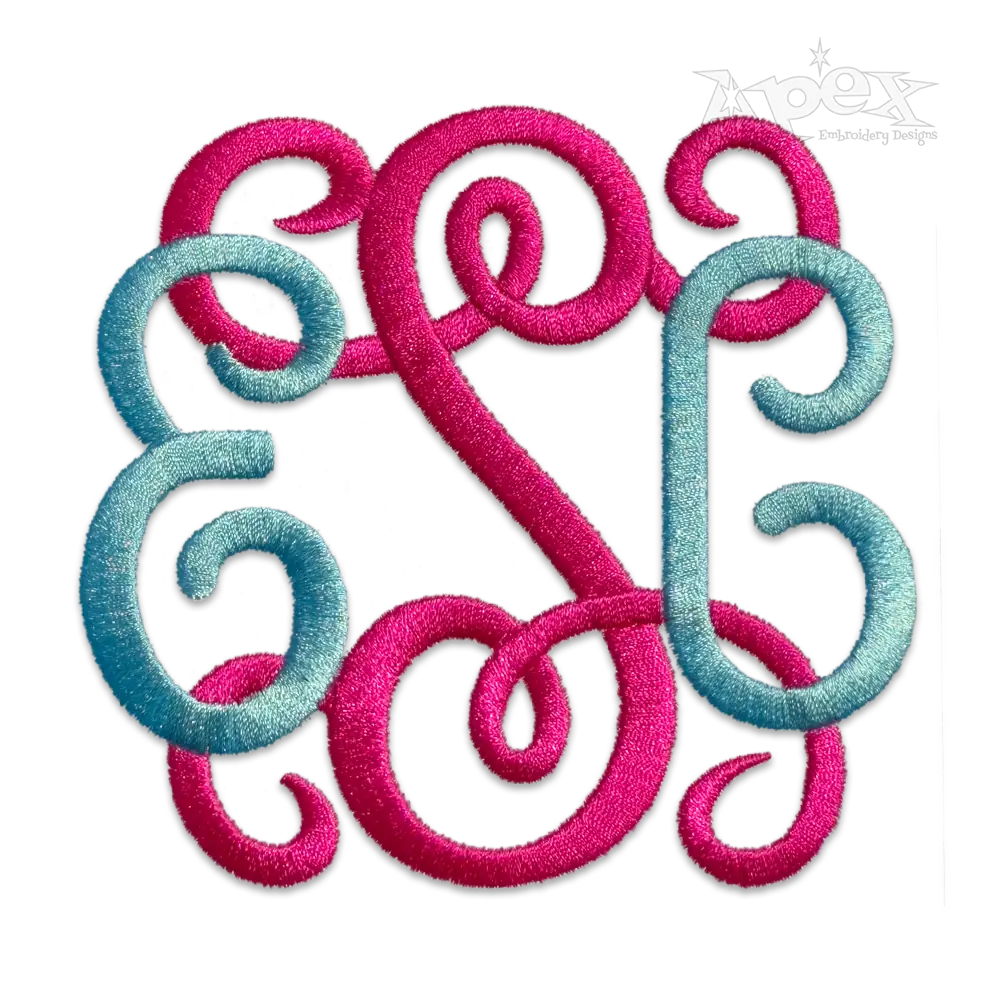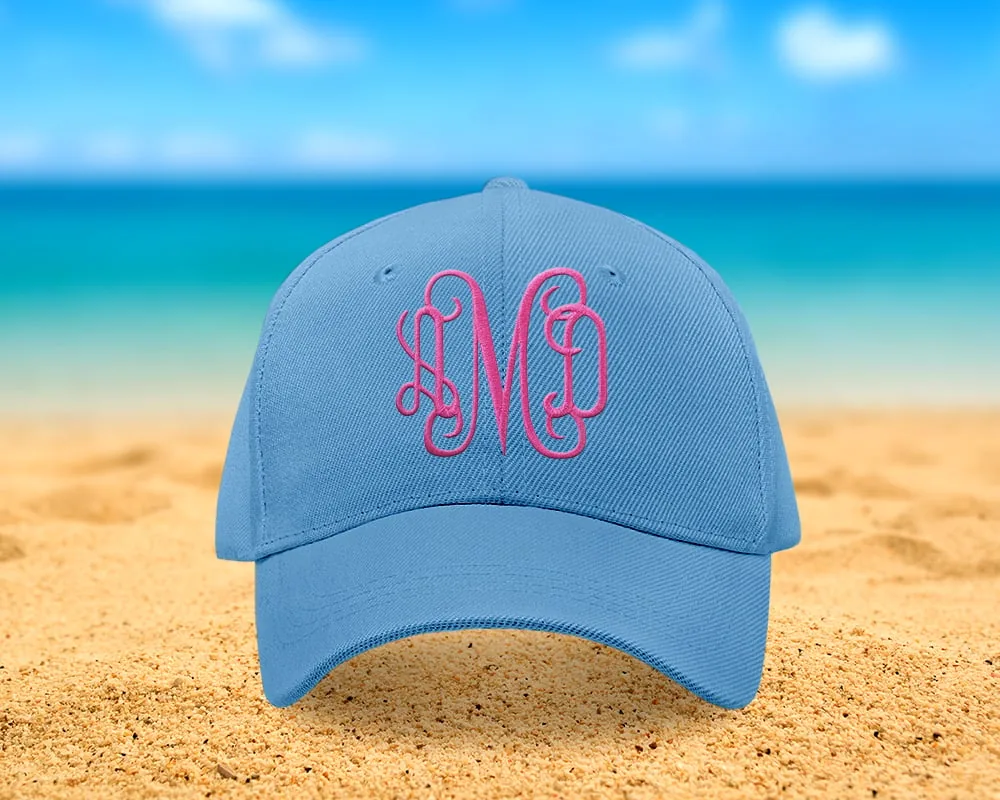
Vine Interlocking Monogram Embroidery Font
Needle weaves botanical grace into fabric. Vine Interlocking Monogram font captures classic estate grandeur through flowing, interwoven letters. Hand-tuned curves mimic antique iron garden gates. Letter pairs twine naturally, turning initials into ornate personal crests. Thick satin stitches shimmer across open weave or heavy pile, bringing timeless Southern charm and heirloom warmth to every stitch-out.
Project Ideas for Vine Interlocking Monogram
Tailor bespoke textiles with distinct personalized presence:
- Luxury Table Linens: Crisp linen cocktail napkins and runner ends carry vintage Southern hospitality.
- Bridal Party Gifting: Silk kimonos, spa wraps, and bridal robes feature romantic initials.
- Heirloom Bedding: Pillow shams, duvet covers, and bolster pillows gain five-star estate styling.
- Bespoke Resort Wear: Sun hats, linen tunics, and structured canvas beach totes gain refined identity.
- Plush Bath Ensembles: Heavyweight terry bath sheets and guest hand towels maintain crisp thread definition.
Vine Interlocking Monogram Craft & Letterform Details
Digitizing interlocking script requires precise stitch orchestration. Left and right letters balance center initial, curving inward with botanical flourishes. Satin stitch columns receive variable density mapping; wide swells narrow into razor-sharp terminals without thread bunching. Underlay layout locks down fabric weave first, preventing letter drift on high-nap materials like terry cloth. Smooth curve transitions preserve clean outline geometry across small hoops and oversized frames alike.